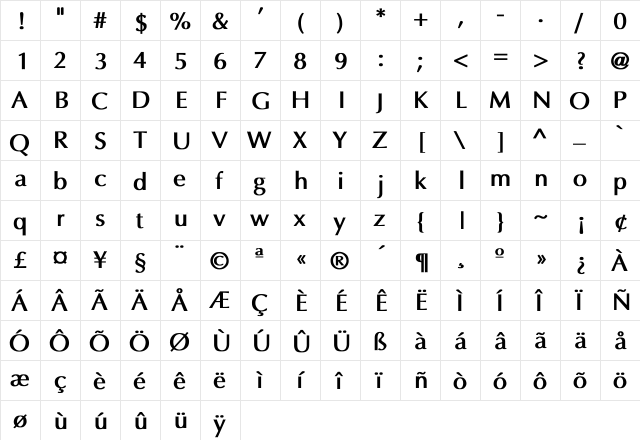
Ottoman Bold Regular
Design Context for Ottoman Bold Typeface
Ottoman Bold offers clean, dependable letterforms without strong stylistic allegiance, making it a practical choice for designers who need flexibility. Its bold stroke weight gives it real presence on the page.